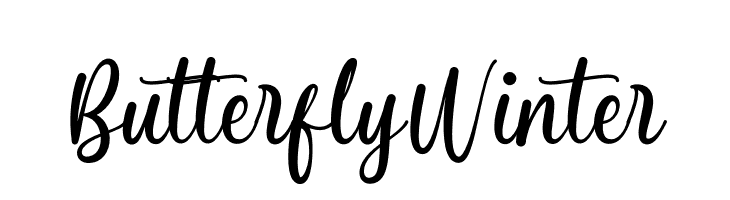
A flowing, cursive font with elegant and playful characteristics.
A bold, flowing script font with interconnected letters and a lively, dynamic style.
An elegant, flowing script font with graceful curves and smooth strokes.
A lively, expressive handwritten font with dynamic strokes.
A dynamic and elegant script font with fluid strokes.
A dynamic, flowing script font with a handwritten, artistic style.
A lively, cursive handwritten font with bold, expressive strokes.